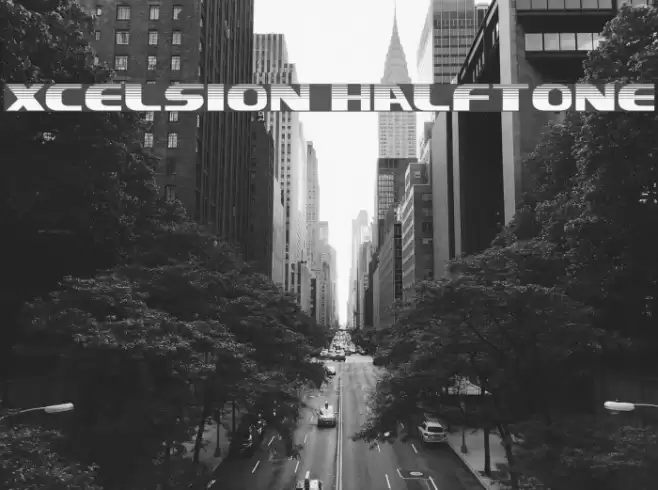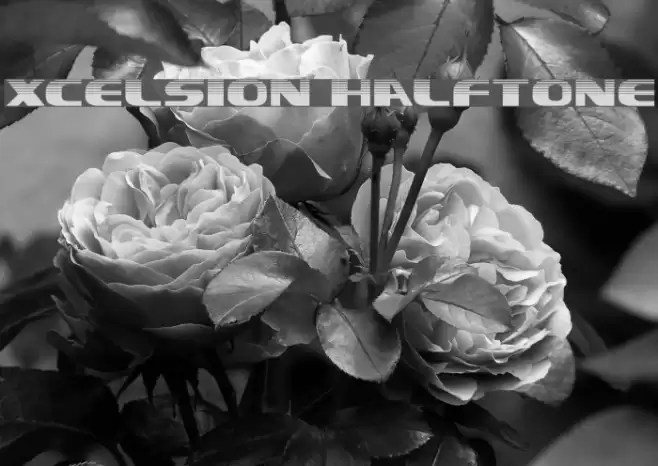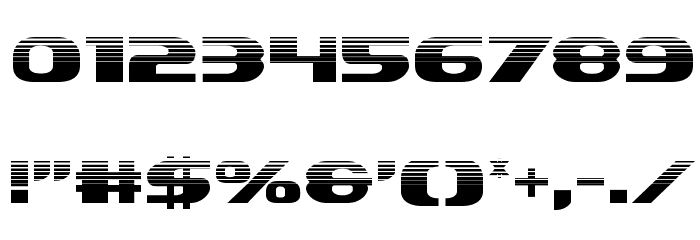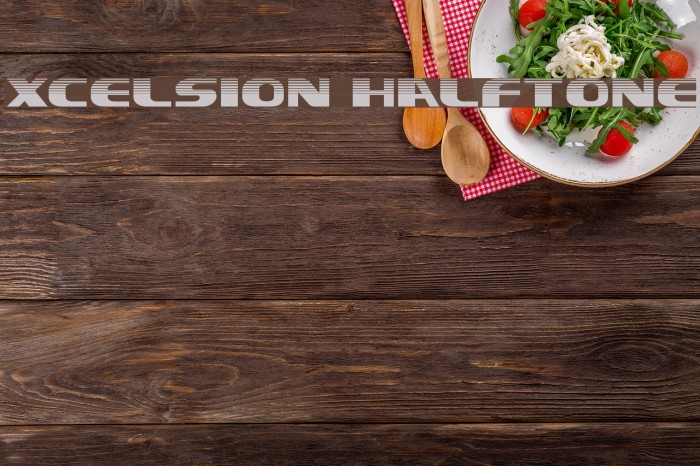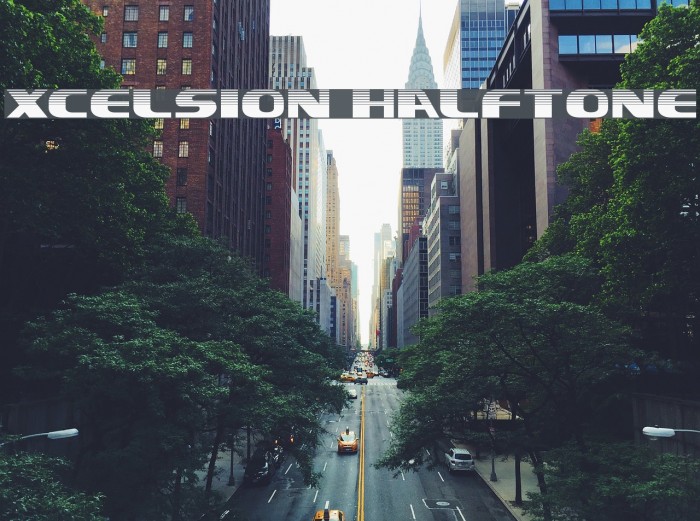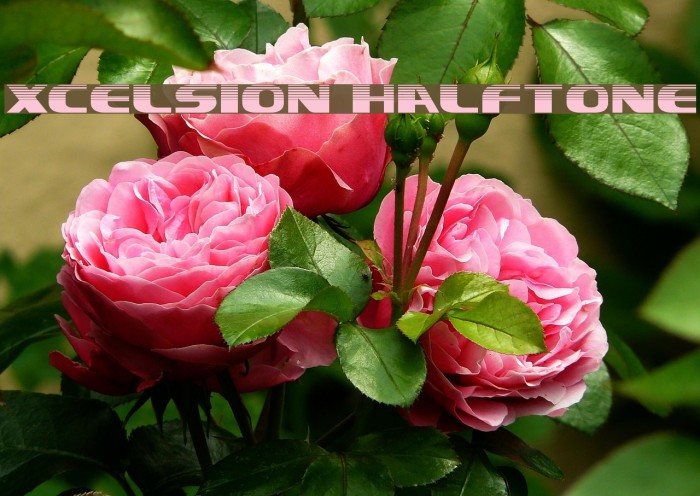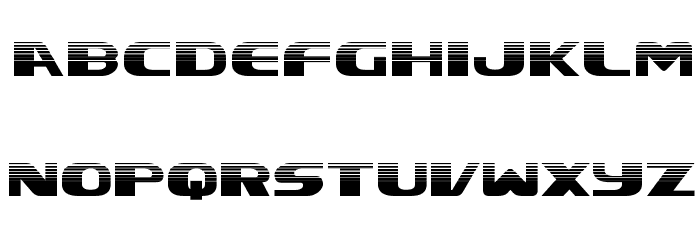
Xcelsion Halftone Font
Xcelsion Halftone Description
This font features a bold, futuristic design with a halftone effect that gives it a dynamic and modern appearance. The characters are constructed with horizontal lines that create a sense of movement and energy. Each letter and number is distinct, with sharp angles and a geometric structure that enhances its contemporary style. The halftone pattern adds depth and texture, making it ideal for eye-catching designs. This font is perfect for projects that require a strong visual impact, such as posters, advertisements, and digital media.
A bold, futuristic font with a dynamic halftone effect from Uncategorized fonts.
- Proposed Projects: Ideal for posters, advertisements, digital media, and any project needing a strong visual impact.